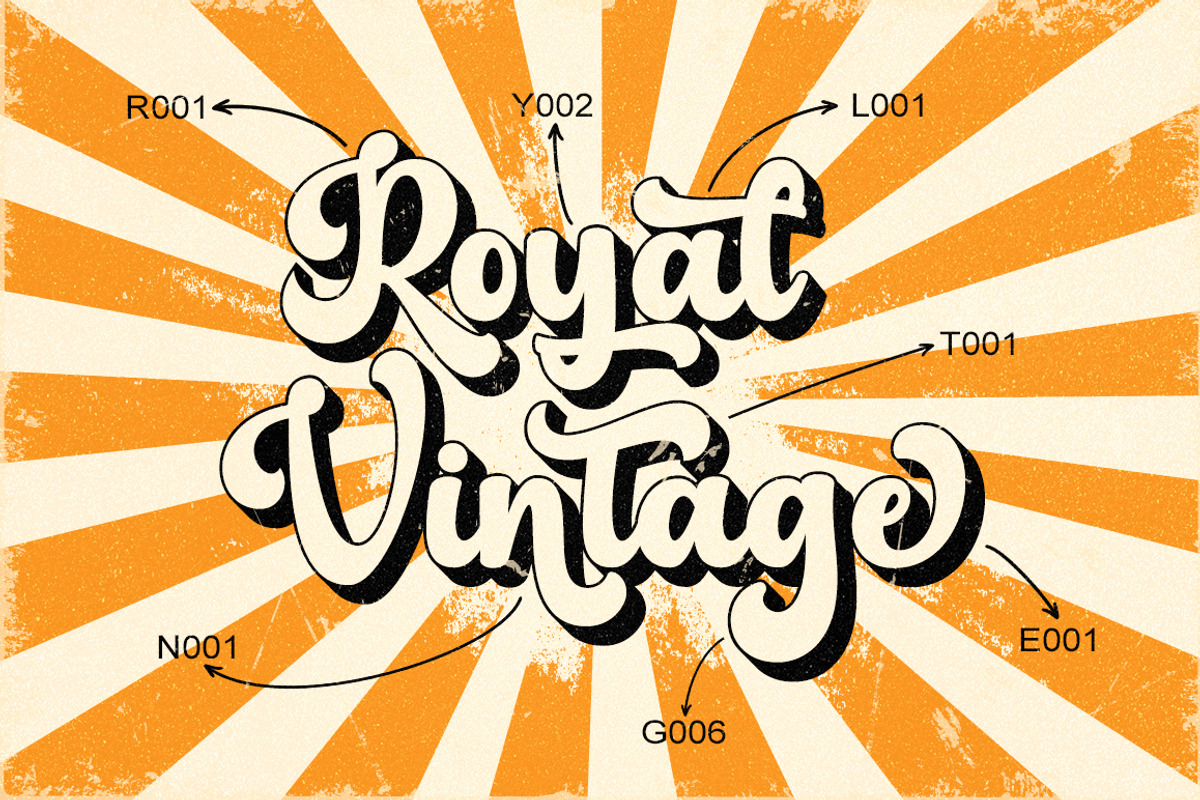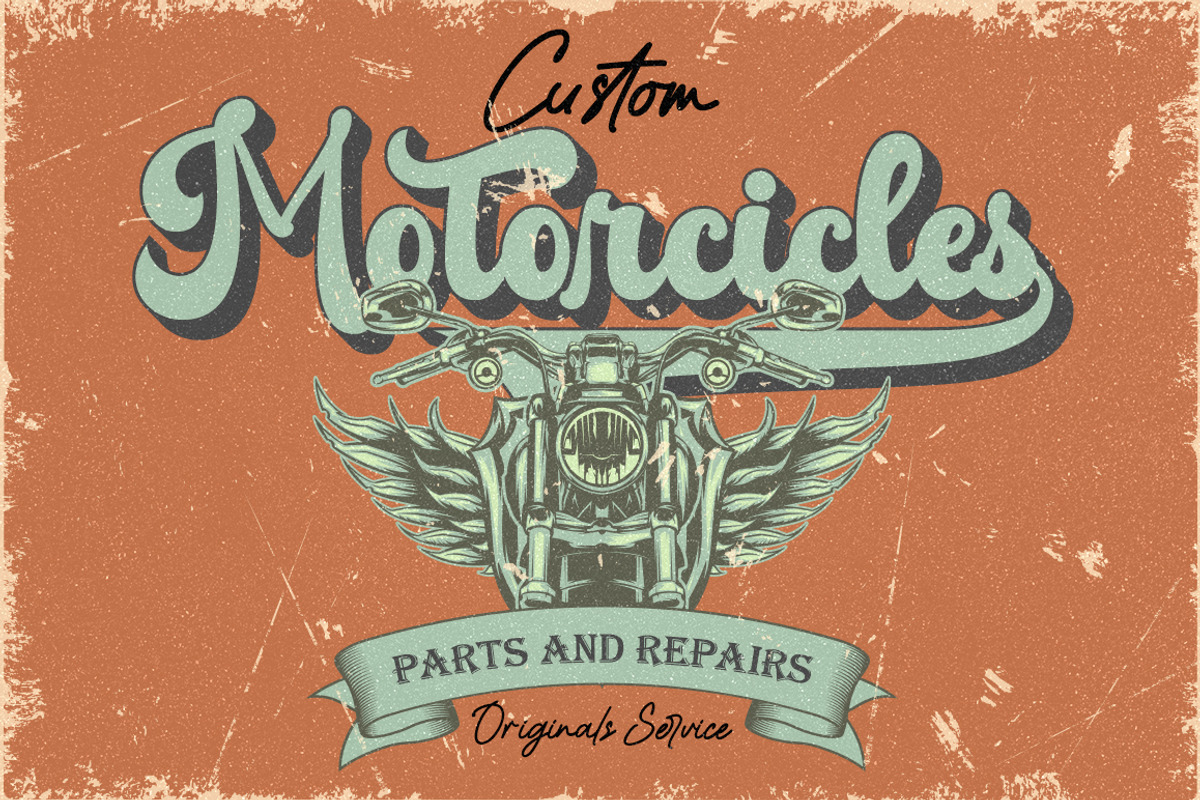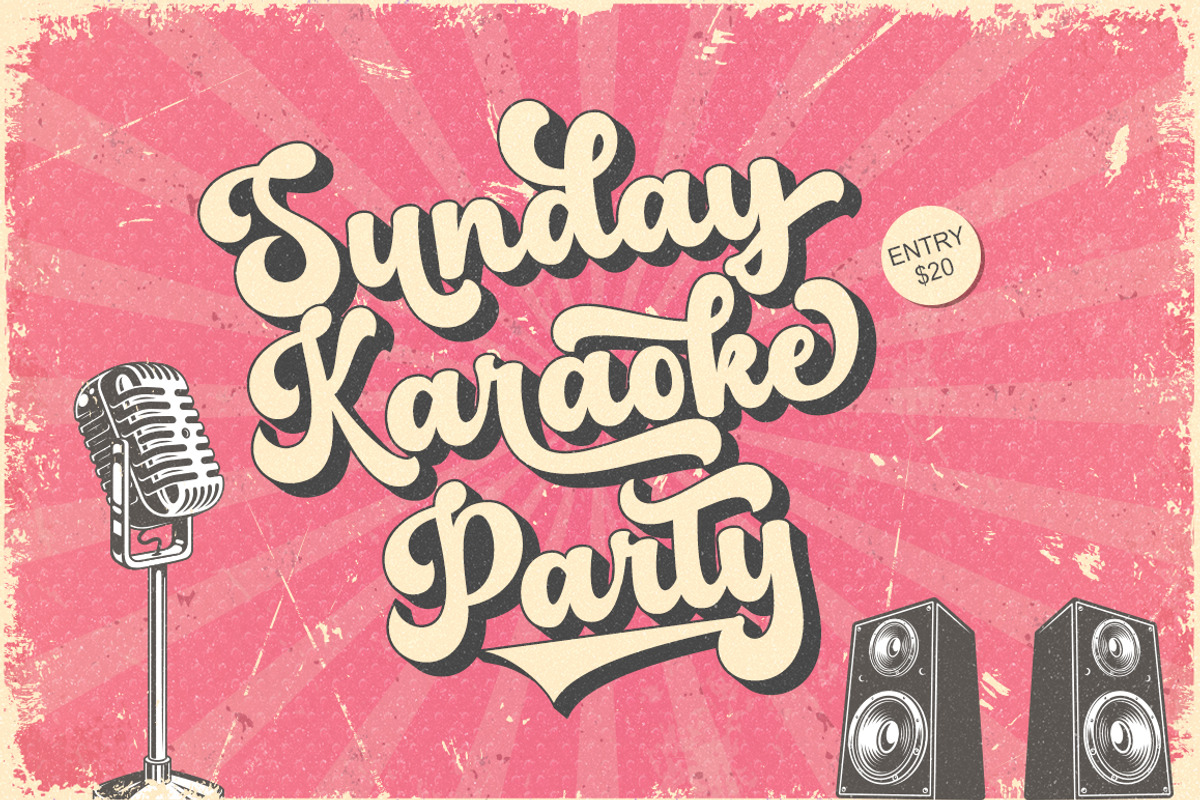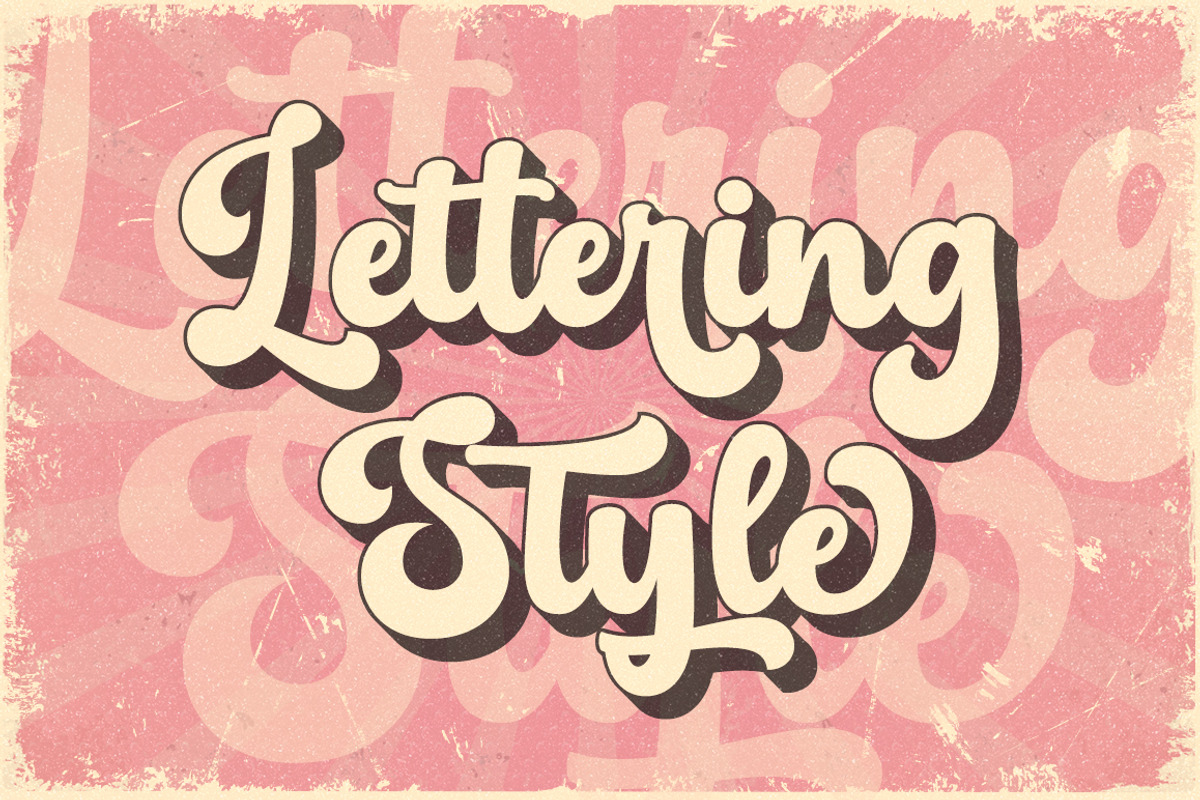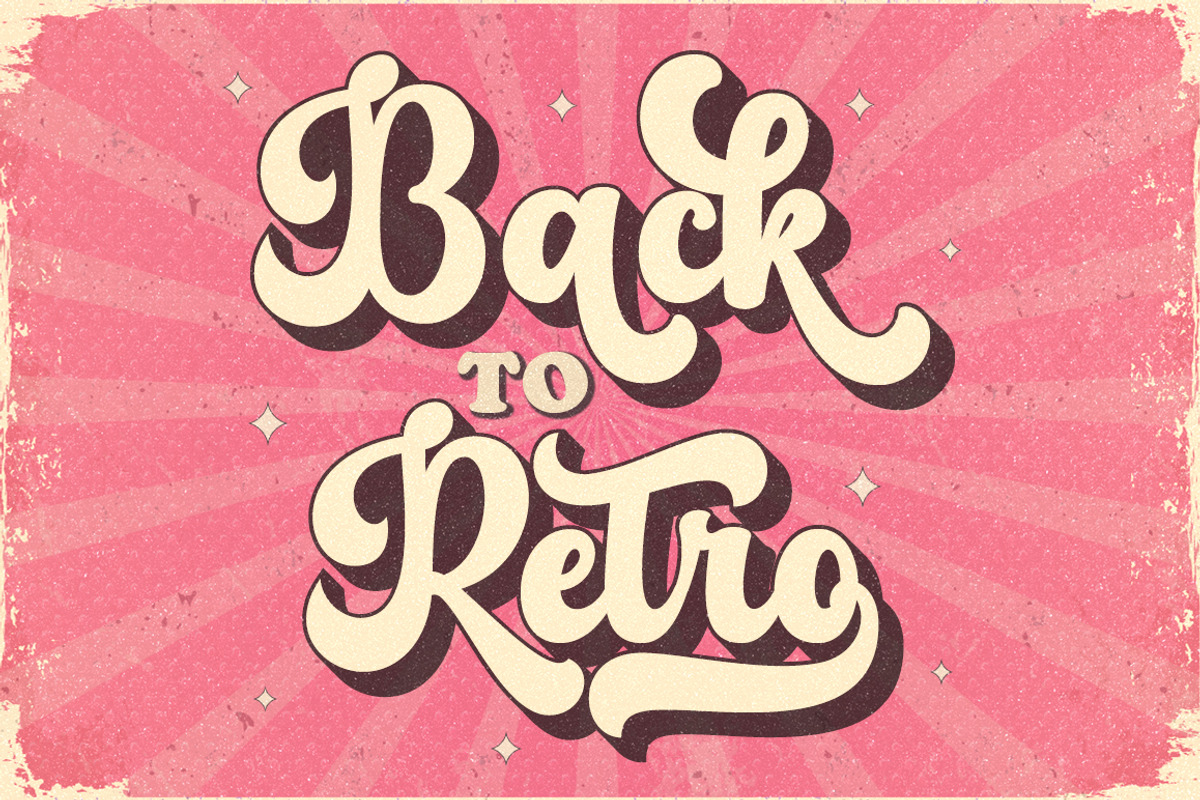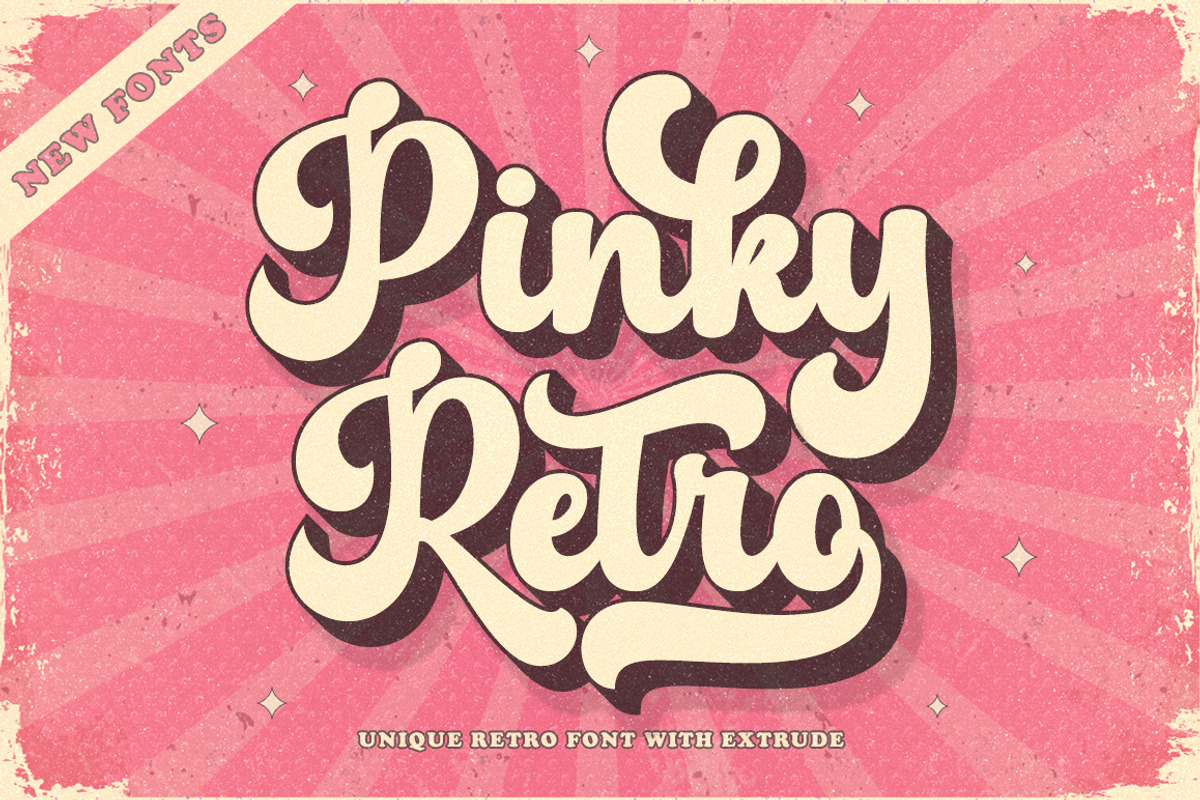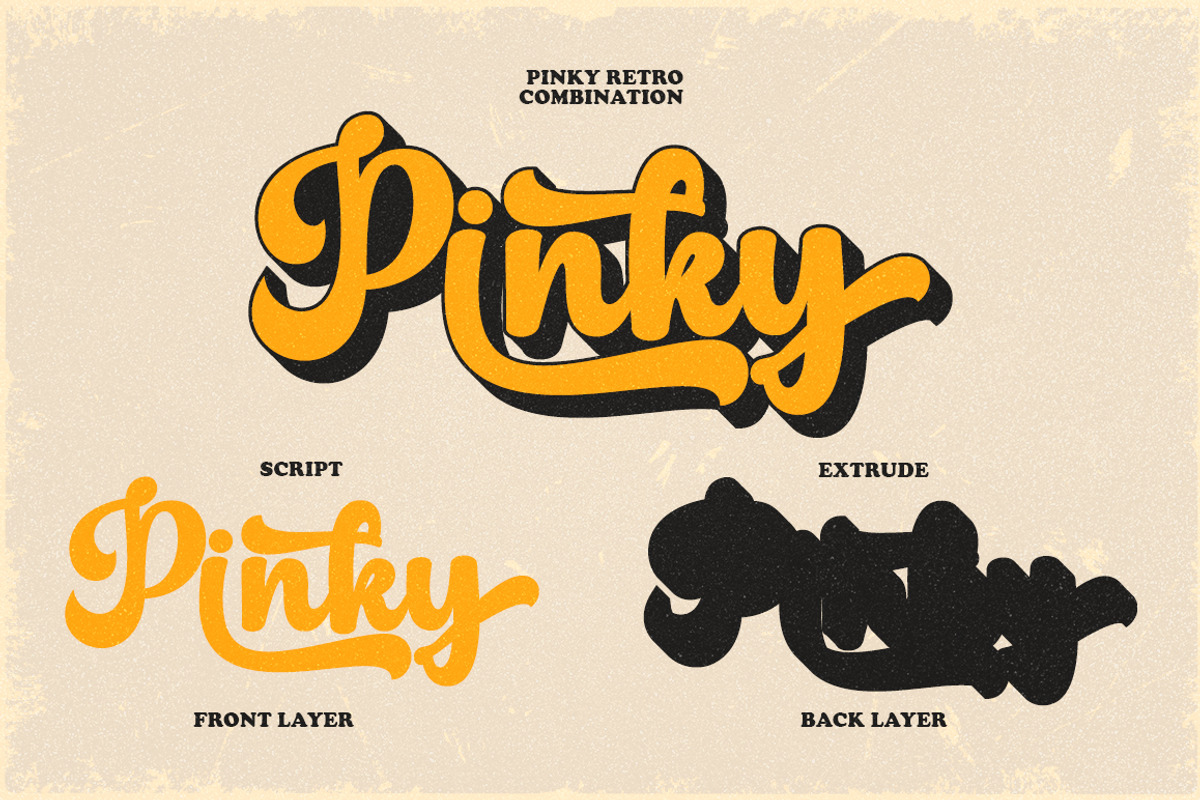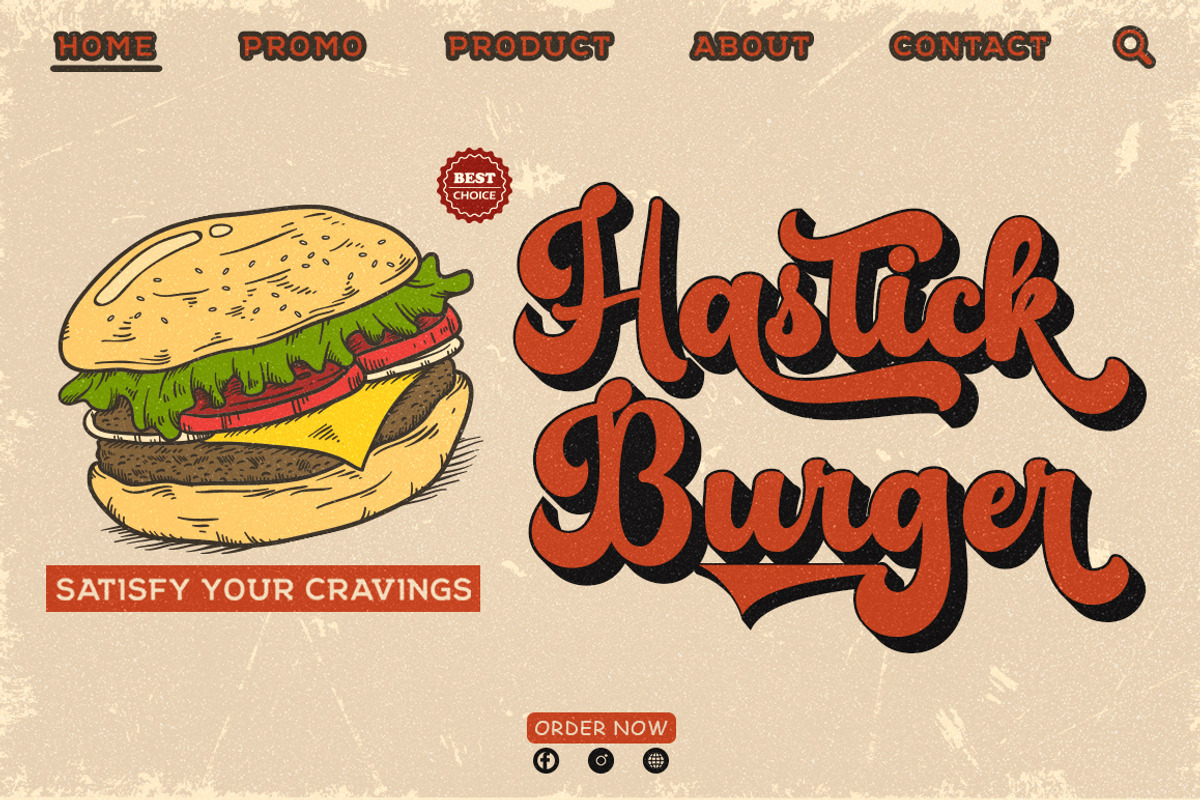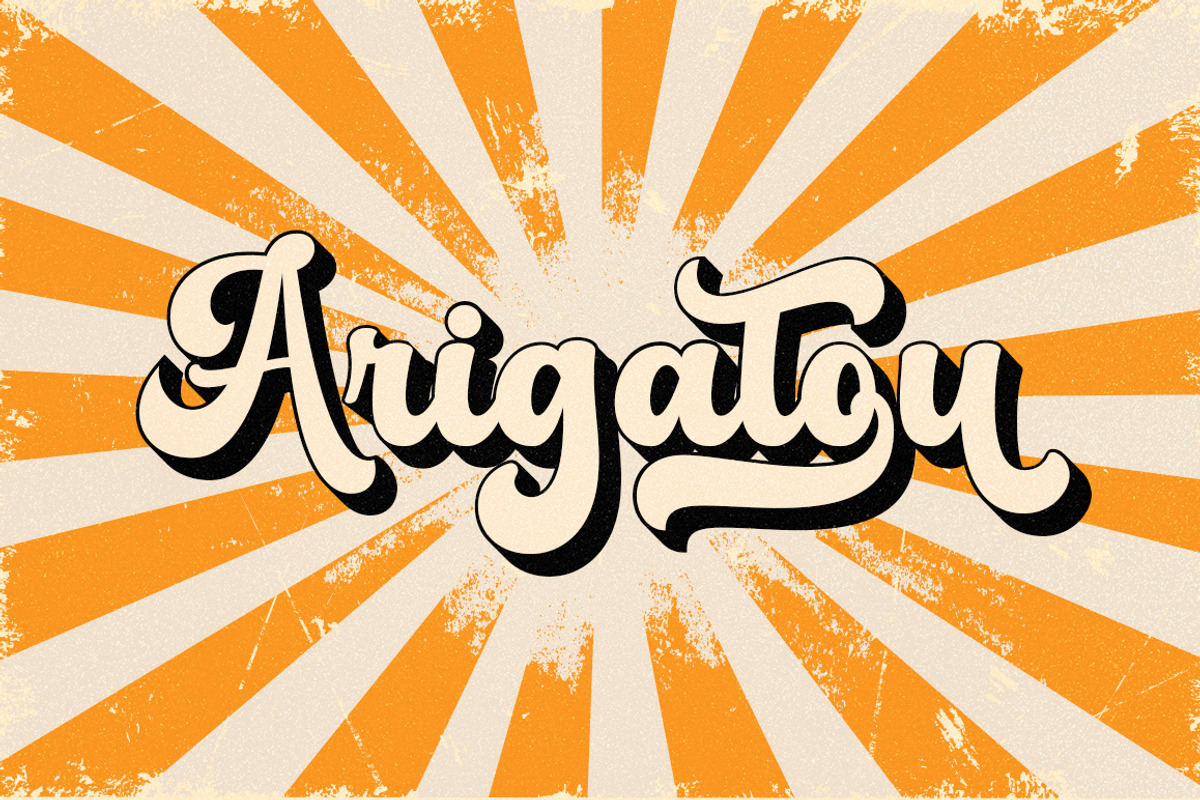
Pinky Retro
Introducing, Pinky Retro, a bold retro script that will take you back to the 60s. This typeface has an extruded version so you can create a retro effect font easily. This font is very suitable for application, especially on logos, and various other formal forms such as invitations, labels, logos, magazines, books, greeting/wedding cards, packaging, fashion, make up, stationery, novels, labels or any type. advertising purposes.